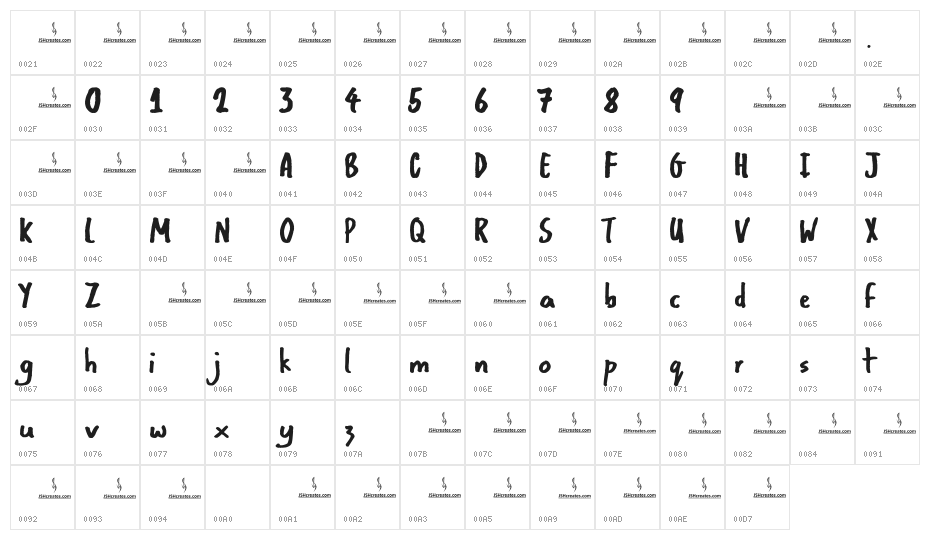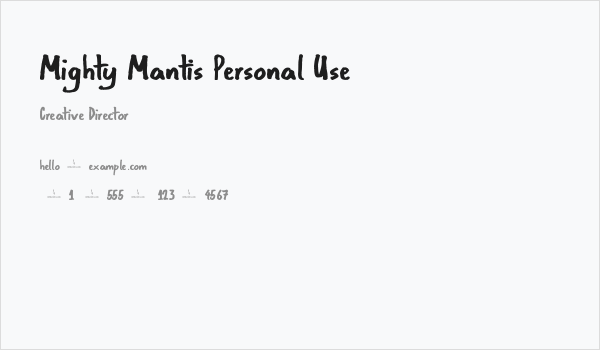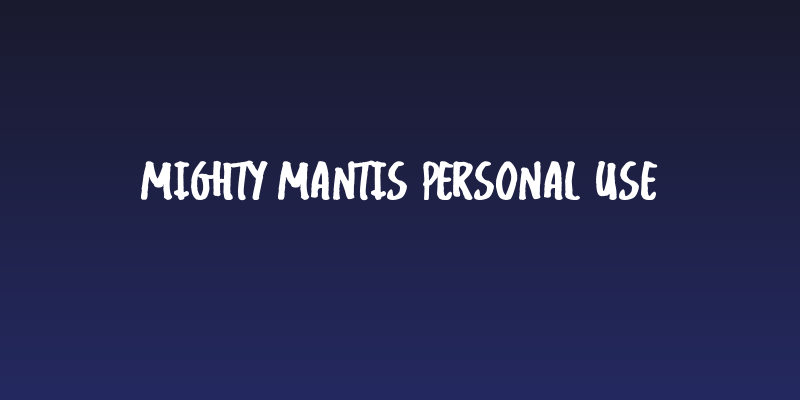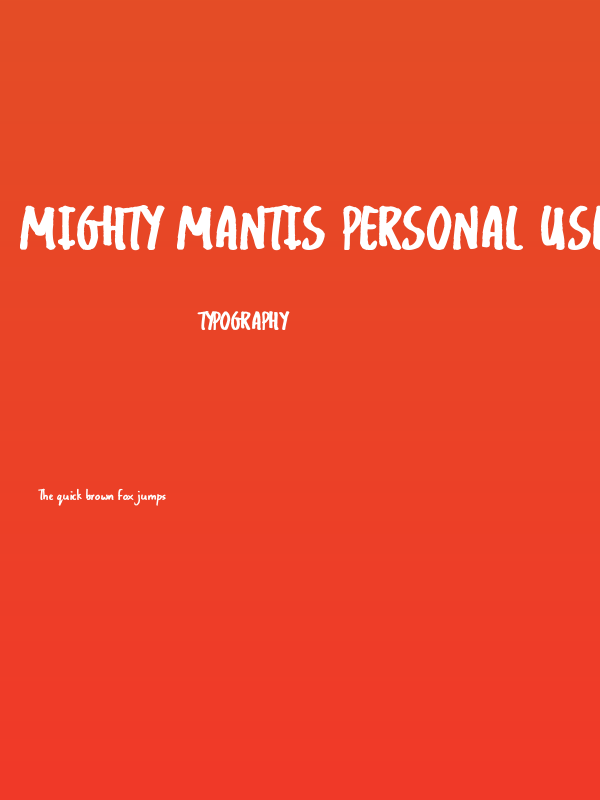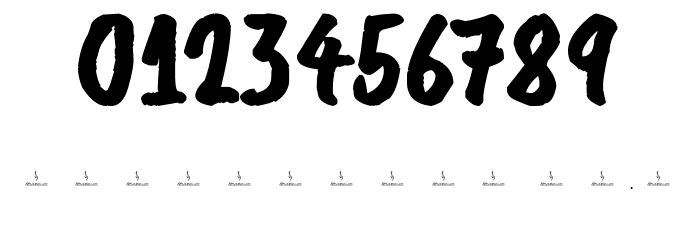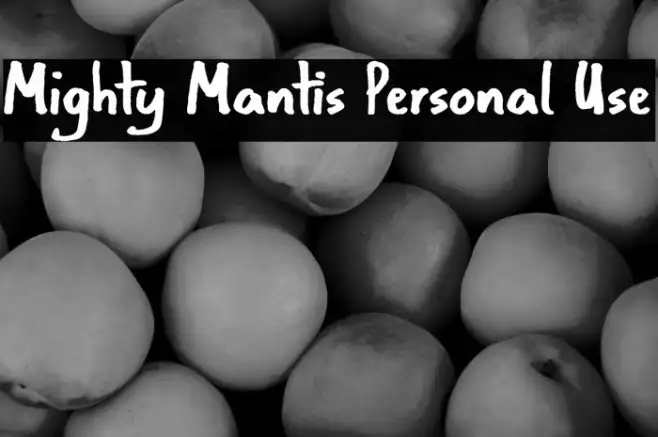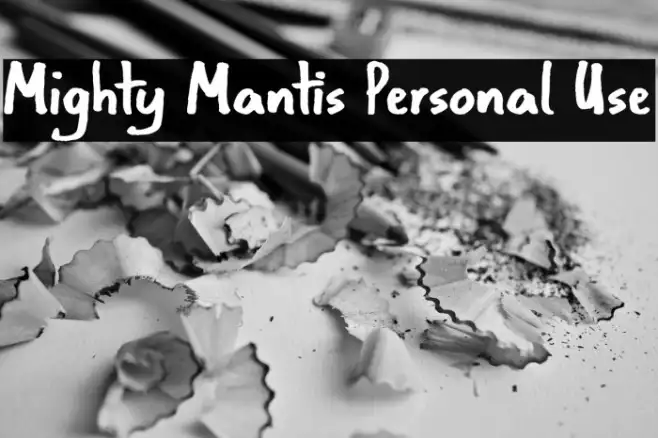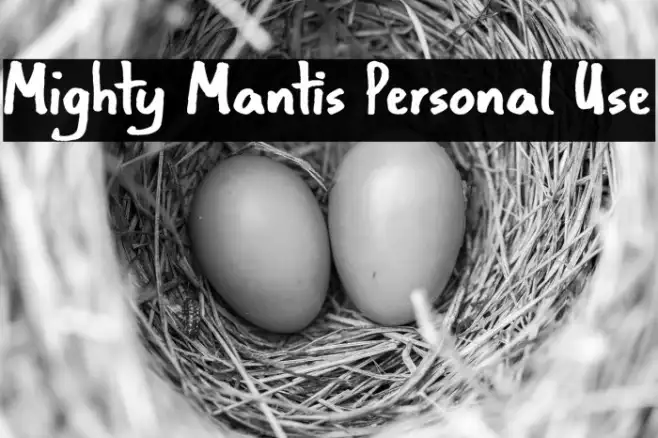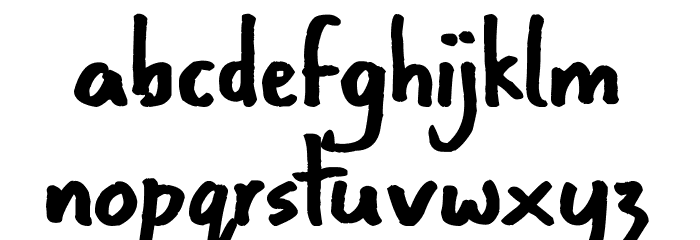
Mighty Mantis Personal Use Font
Mighty Mantis Personal Use Description
This font features a bold and expressive handwritten style, characterized by its thick, brush-like strokes and dynamic flow. The letters have a casual yet impactful appearance, with varying stroke widths that add a sense of movement and energy. The uppercase and lowercase letters maintain a consistent style, with rounded edges and a slightly irregular baseline that enhances its organic feel. The numerals are equally bold, matching the overall aesthetic with their strong presence. This font is perfect for projects that require a personal touch, such as invitations, posters, or branding materials that aim to convey creativity and individuality.
| Proposed Projects | Ideal for invitations, posters, branding materials, and any project needing a creative, personal touch. |